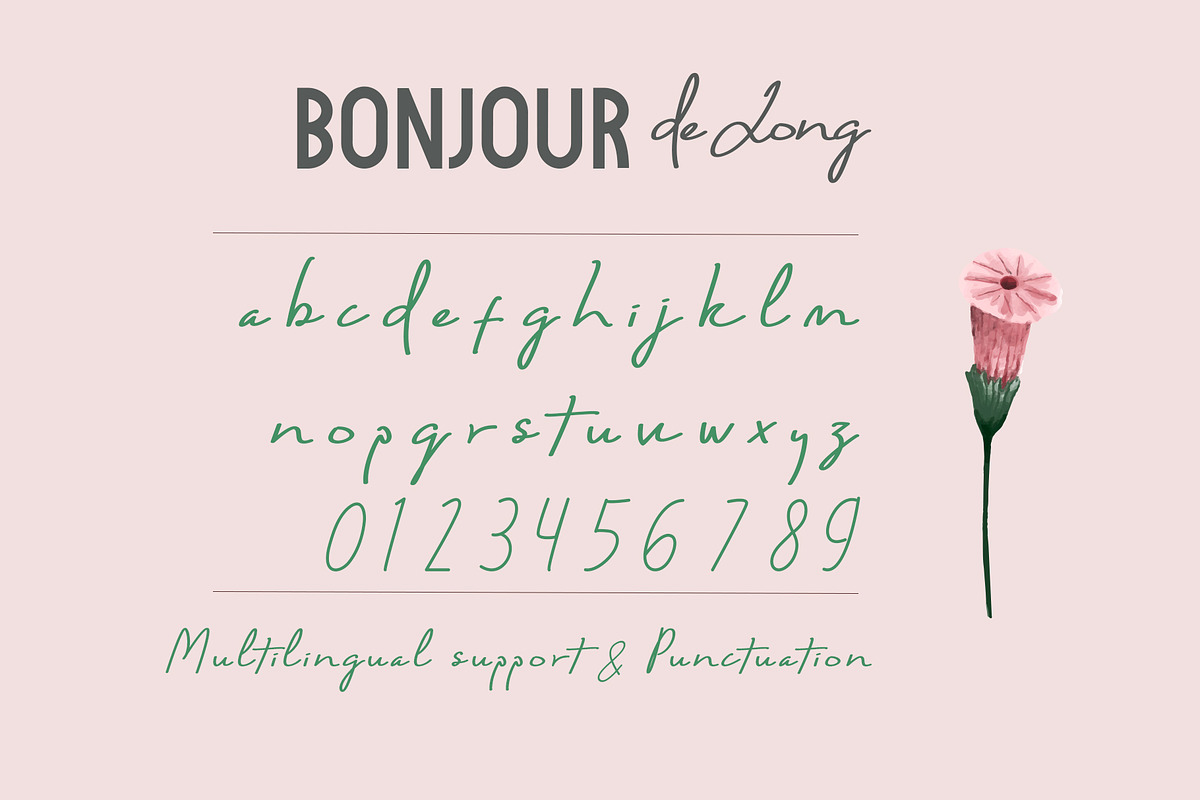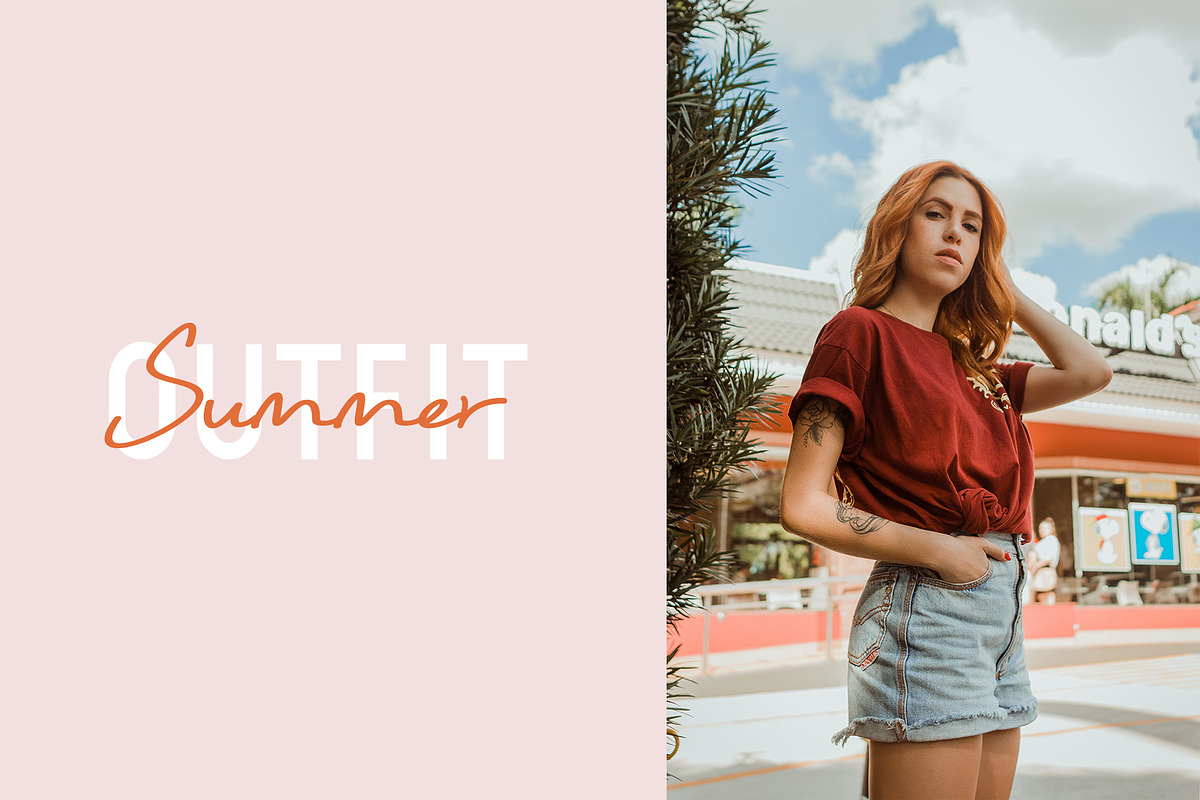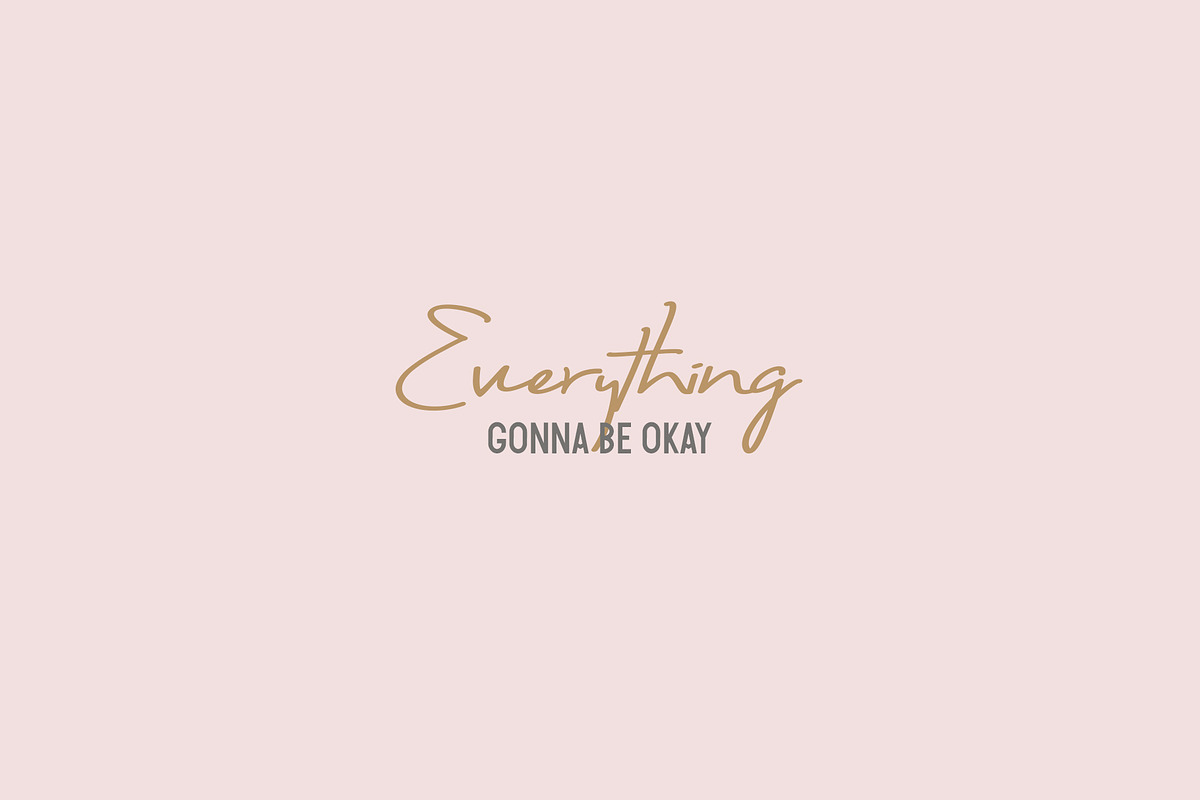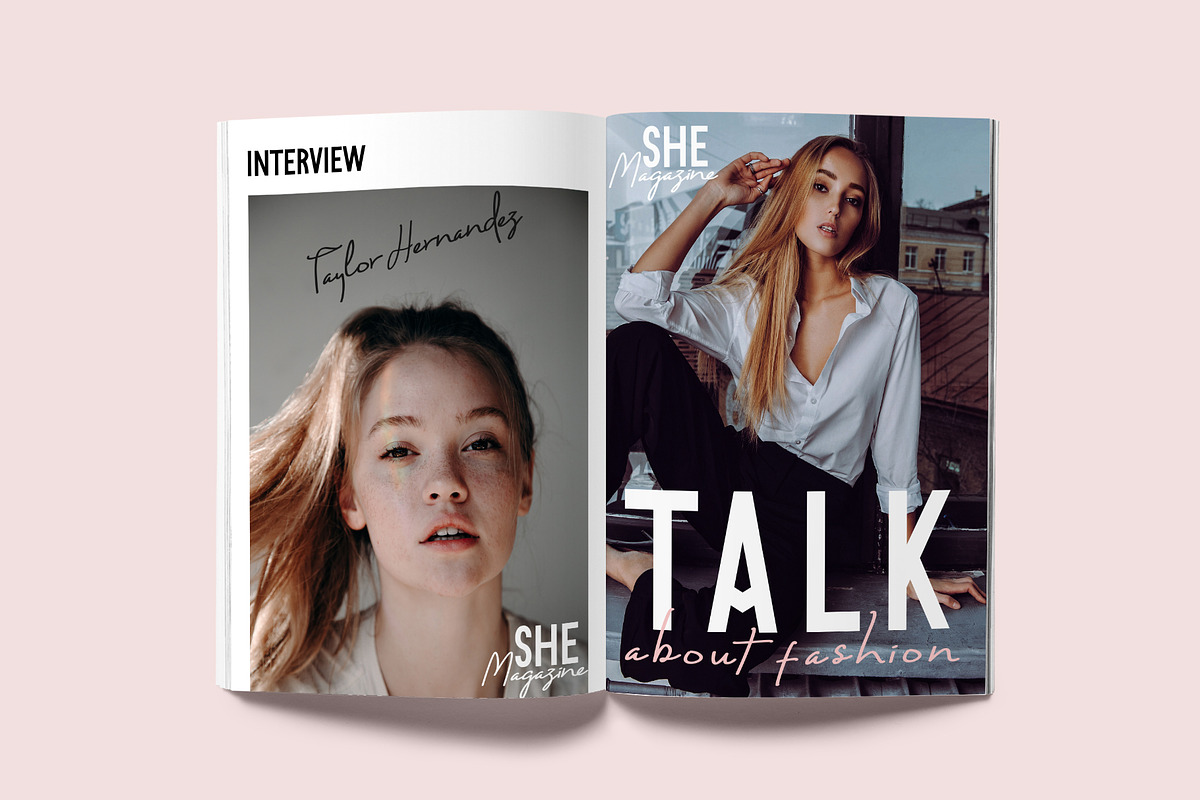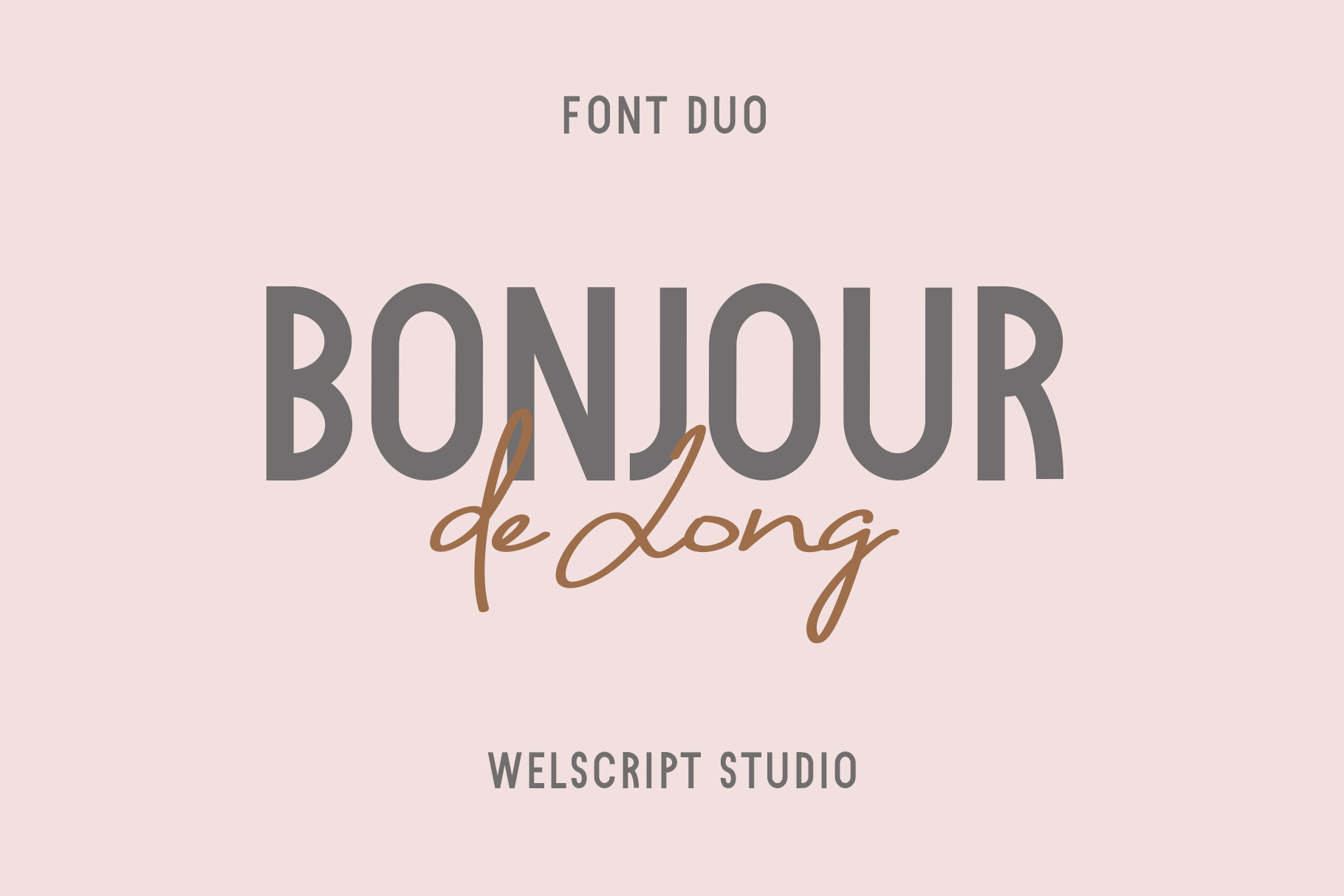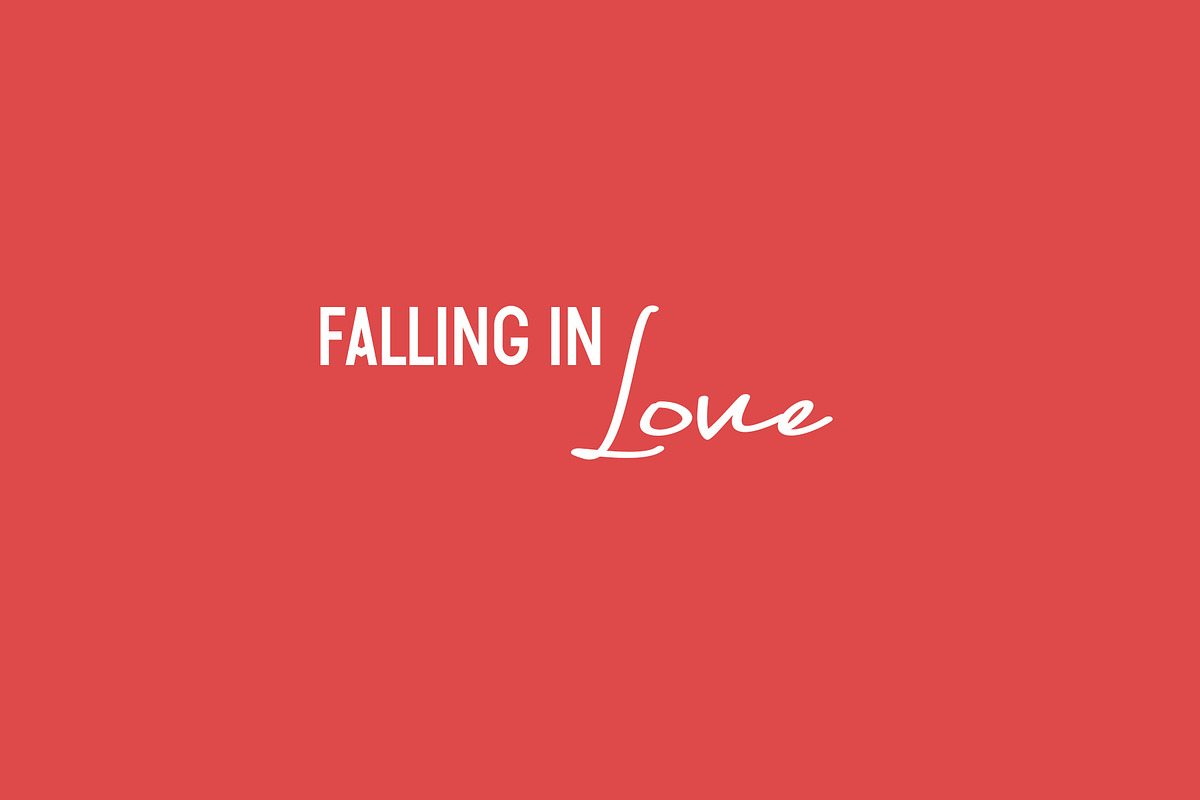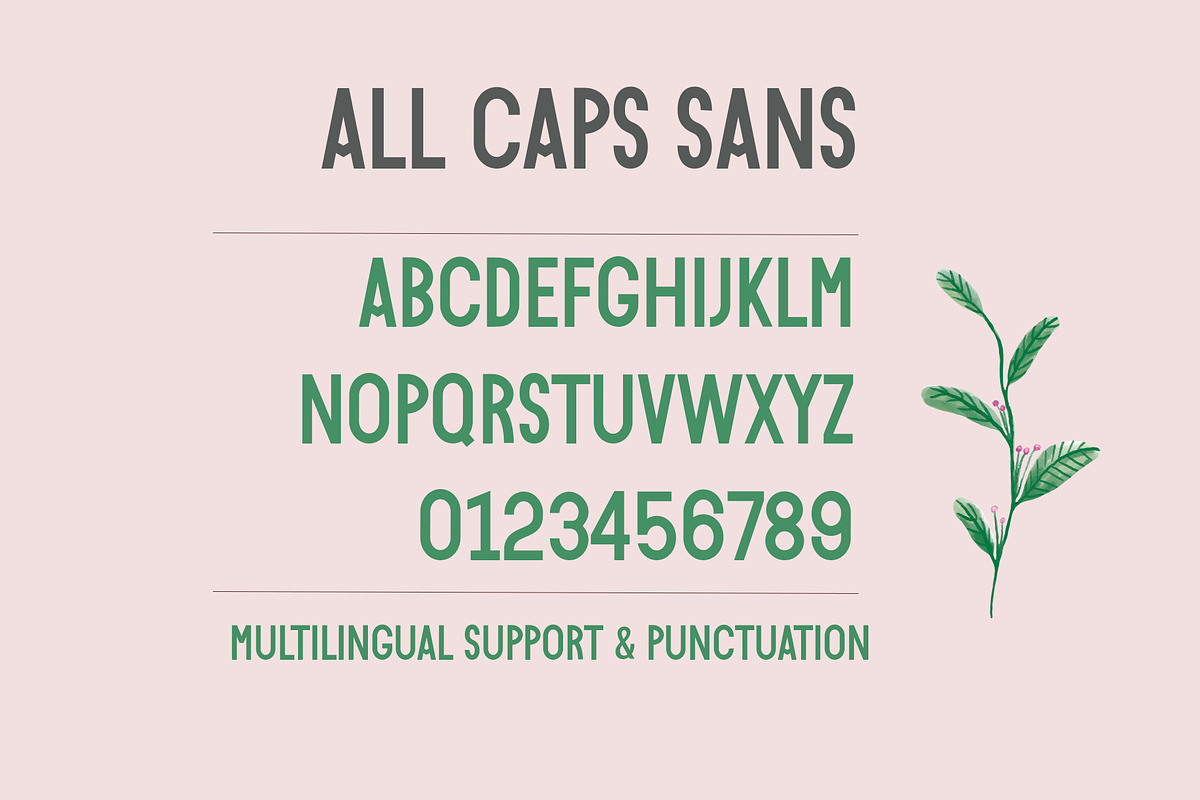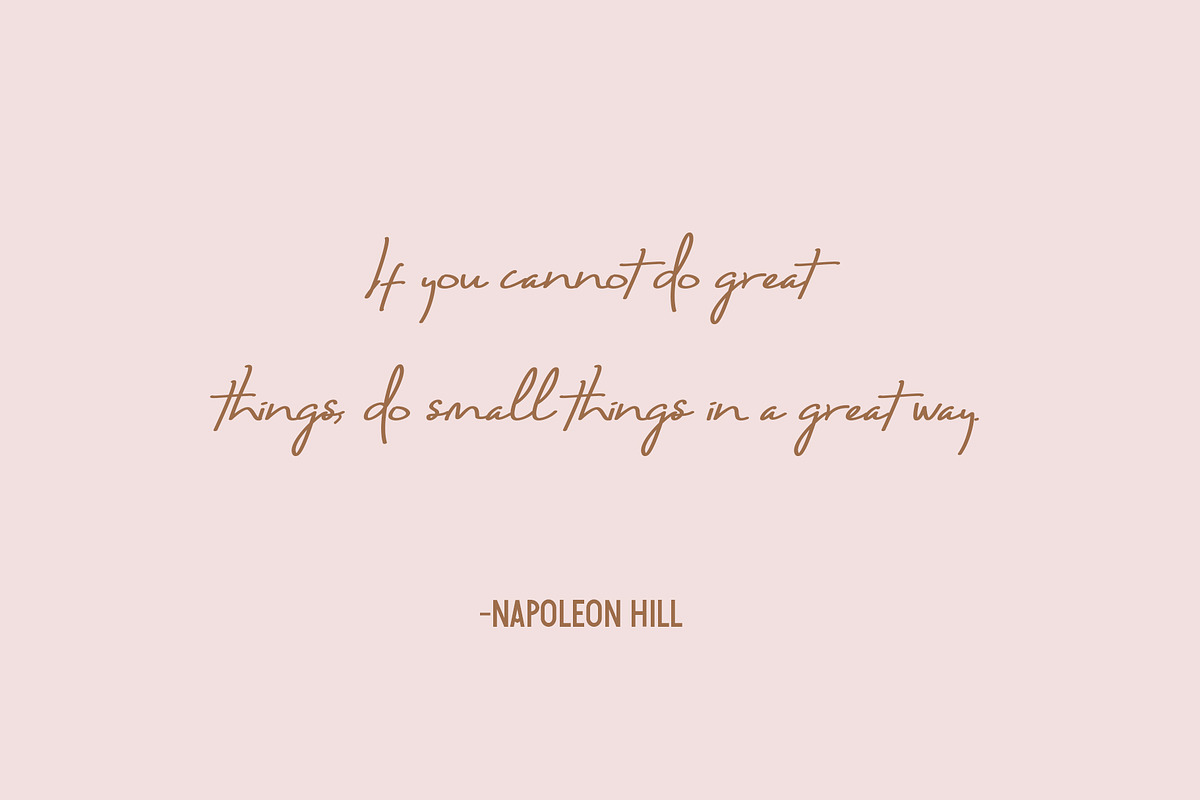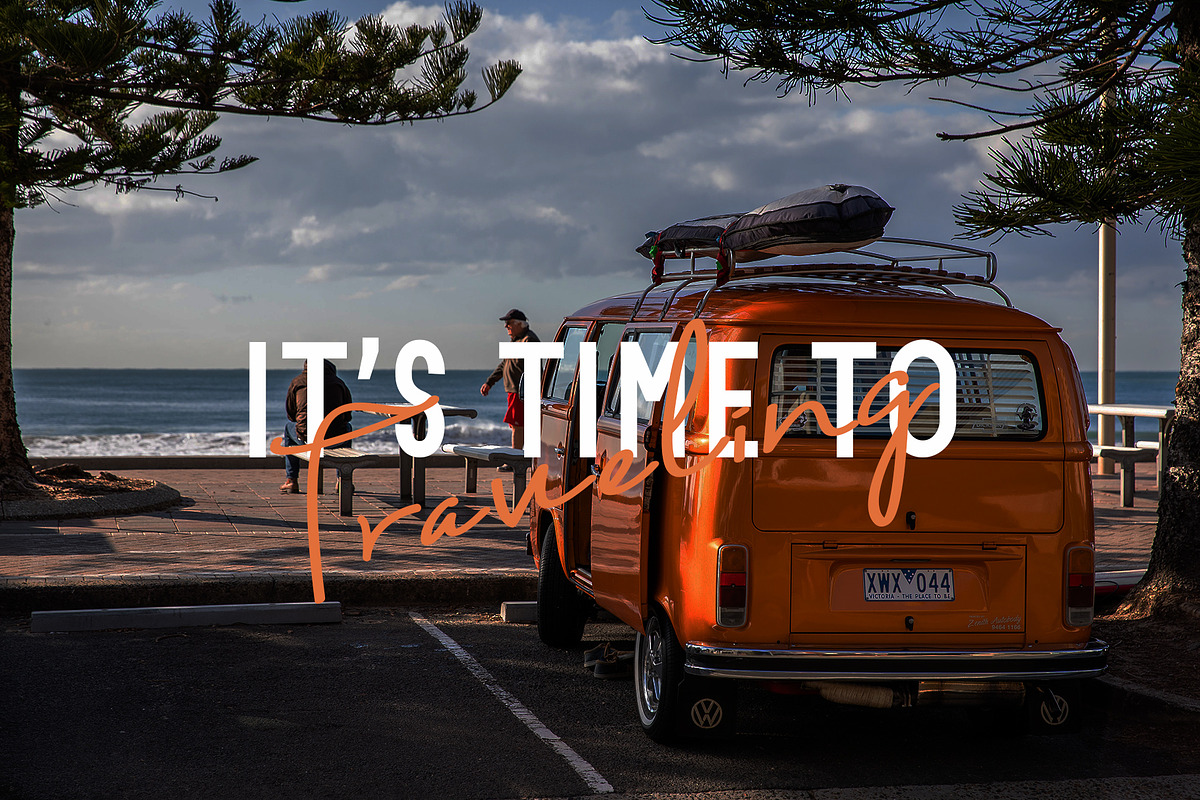
Bonjour de Jong - Font Duo
Bonjour de Jong is a stunning modern font duo that makes for gorgeous logos, posters, wedding invitations, blog posts, social media, and more! Bonjour de Jong is awesome for branding projects, logo, wedding designs, social media posts, advertisements, product packaging, product designs, label, photography, watermark, invitation, stationery and any projects that need handwriting taste. Features :